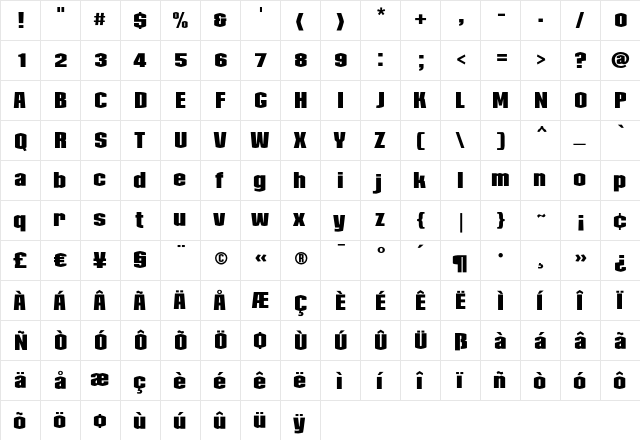
Collos Bold
Design Context for Collos Typeface
Collos takes a measured approach to typography — its balanced proportions and neutral character make it a reliable workhorse for both digital and print work. Its bold stroke weight gives it real presence on the page.